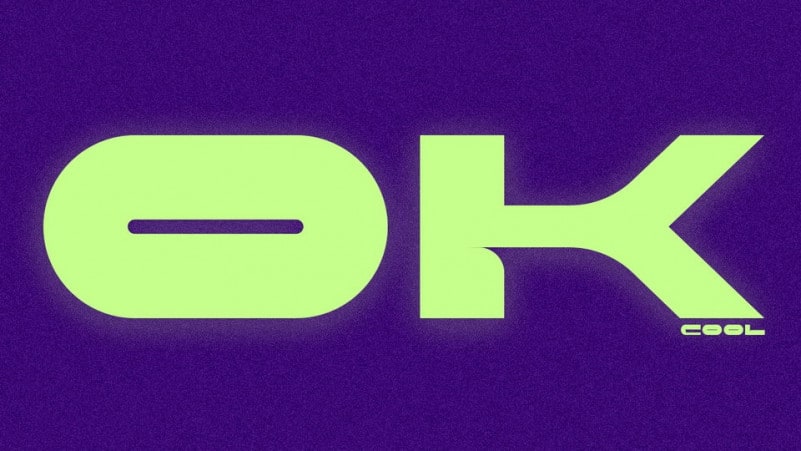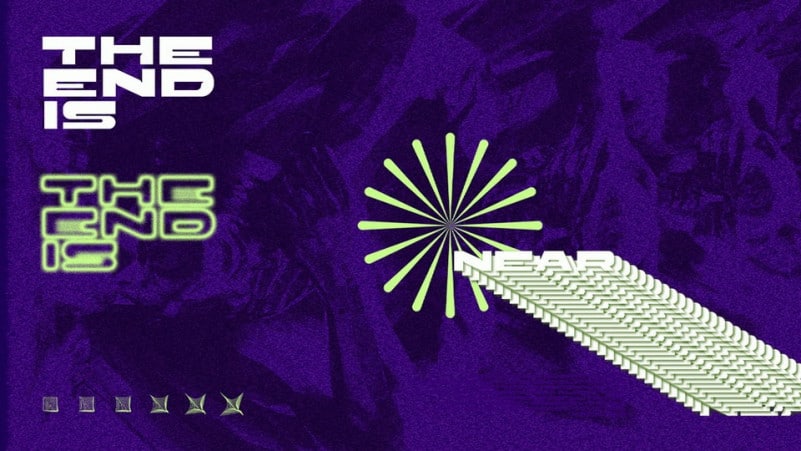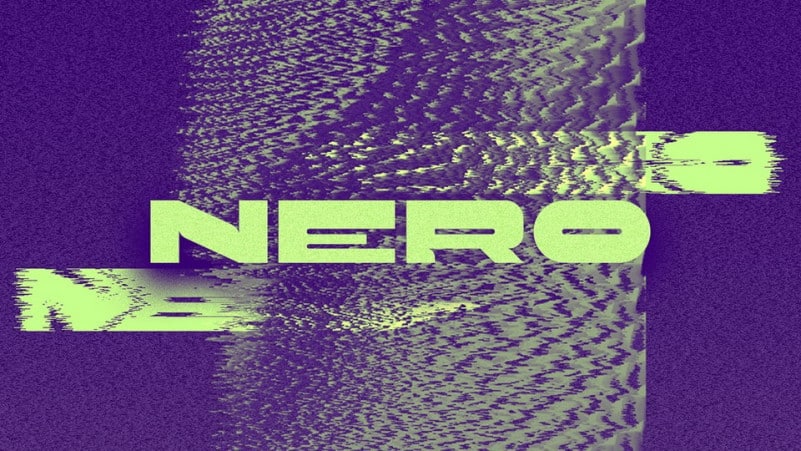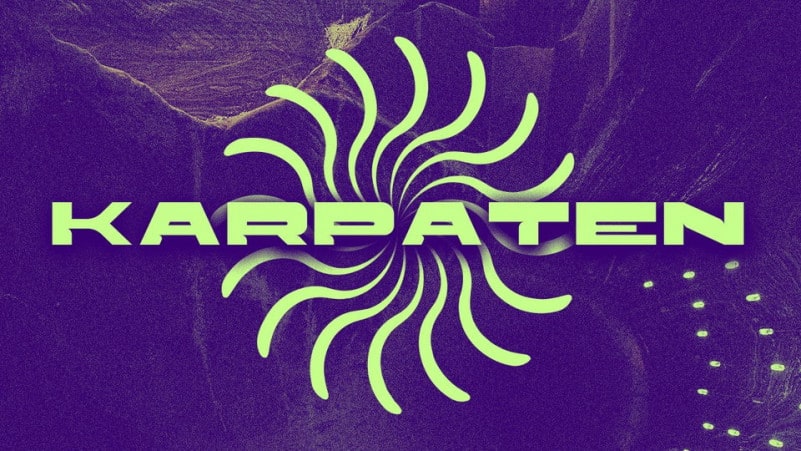
Introducing Karpaten Display Font – bold and fat font, that gives a strong and brave, This font is very suitable for use as headlines, posters, titles, branding, t-shirt printing and other graphic designs. Made from font designer named Luis H. J. Rapp. A free display typeface with the combination of a bold wide look combined with small refined details. All Letters feature the same width (except the letter I ;).